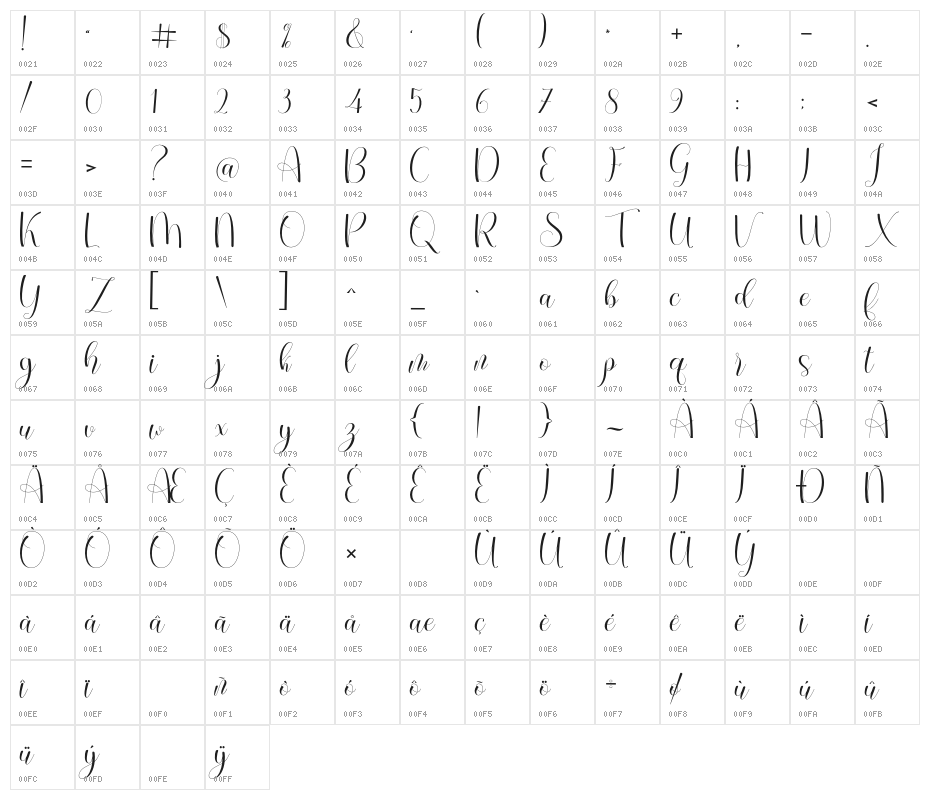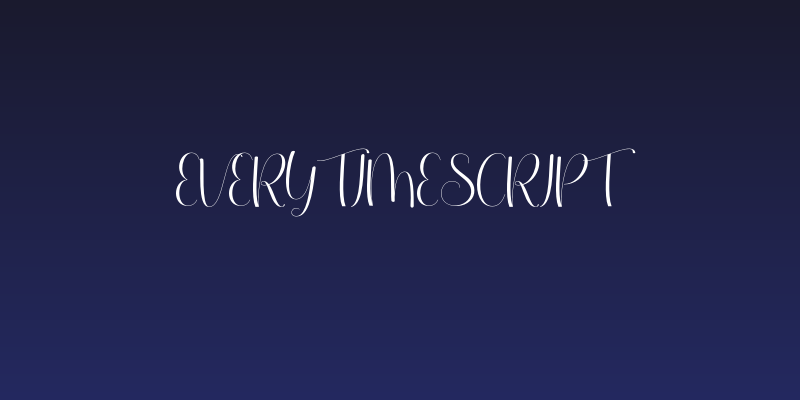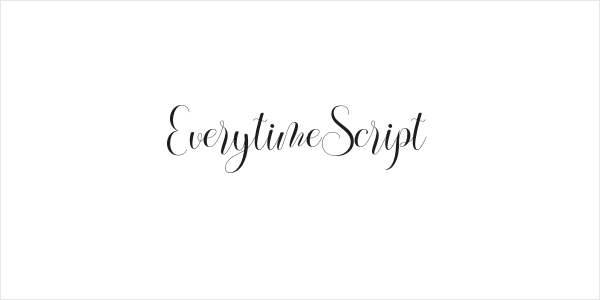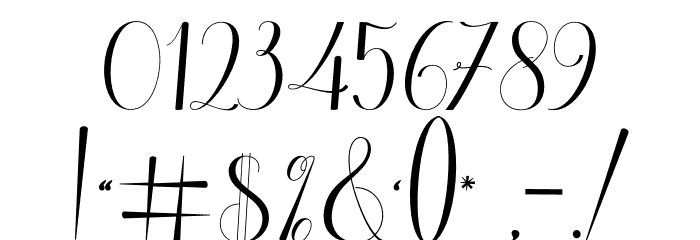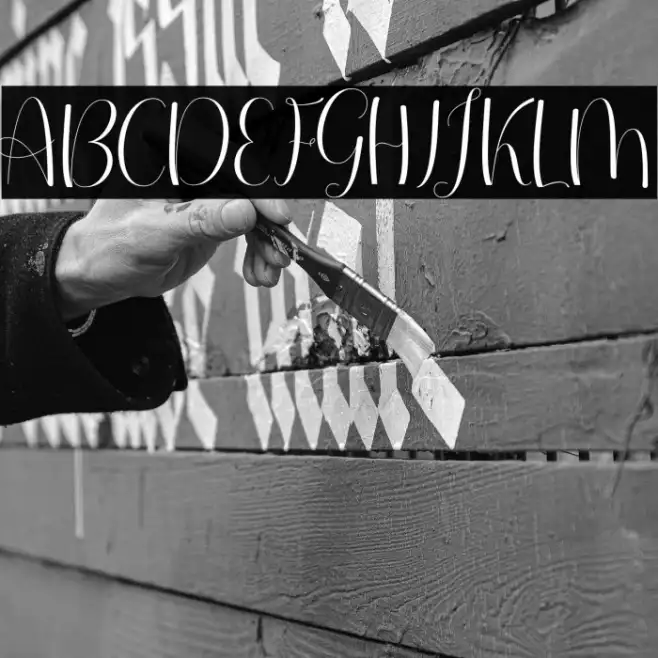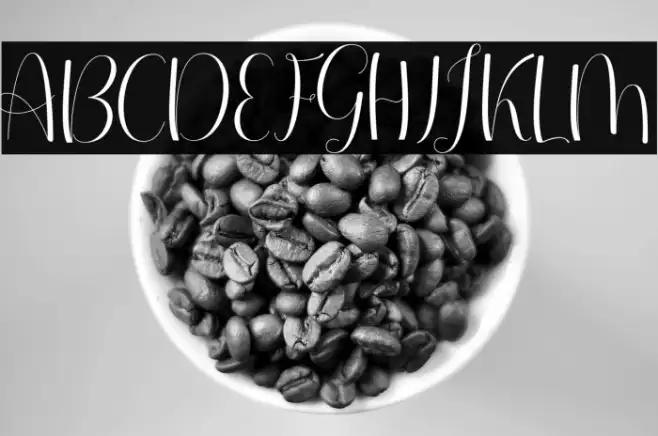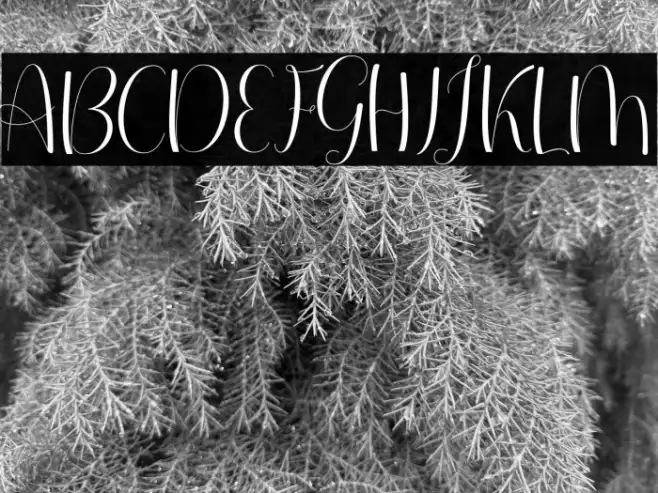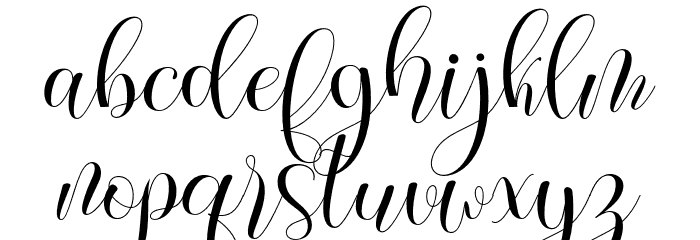
EverytimeScript Font
EverytimeScript Description
This elegant script font features flowing, interconnected letters with a graceful and sophisticated appearance. The uppercase letters are tall and slender, with sweeping curves and loops that add a touch of flair. The lowercase letters maintain a consistent style, with smooth transitions and delicate strokes. Numbers and special characters are designed to complement the overall aesthetic, maintaining the same fluidity and elegance. The font's design is reminiscent of traditional calligraphy, making it suitable for projects that require a personal, artistic touch.
| Proposed Projects | Ideal for wedding invitations, greeting cards, branding, and any project that requires a touch of elegance and sophistication. |